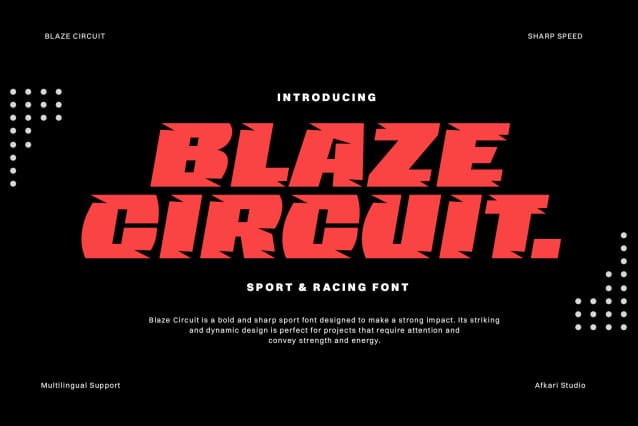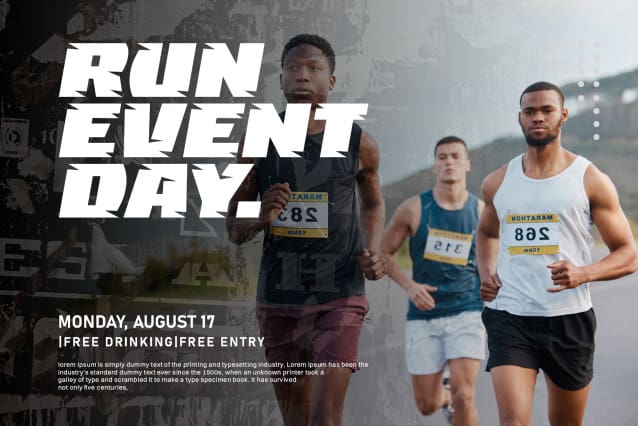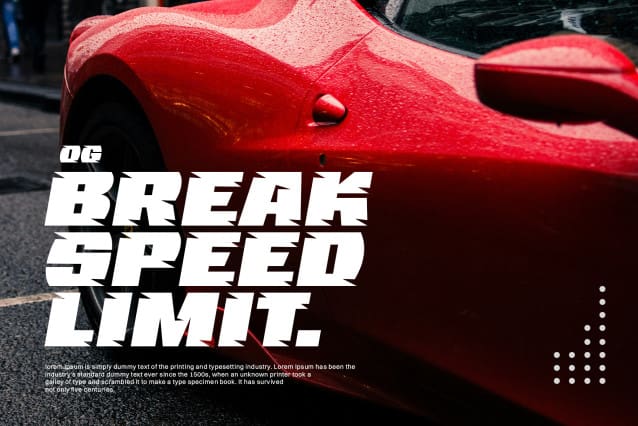
Blaze Circuit Font
Blaze Circuit Font – Bold Sport & Racing Font. Blaze Circuit is a high-octane typeface, expertly designed to embody the adrenaline and speed of the racing world. With its bold, dynamic structure, this font is set to ignite your creative projects, infusing them with a sense of motion and power.
At its core, Blaze Circuit captures the spirit of high-speed sports, reflecting the precision and intensity of competitive racing. Its strong lines and aggressive angles make it the perfect choice for a variety of graphic applications, ensuring it stands out across multiple platforms and mediums.